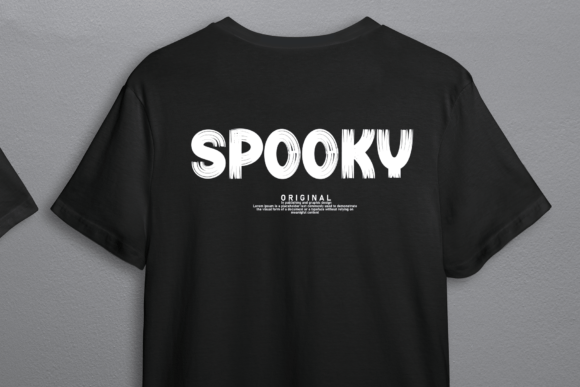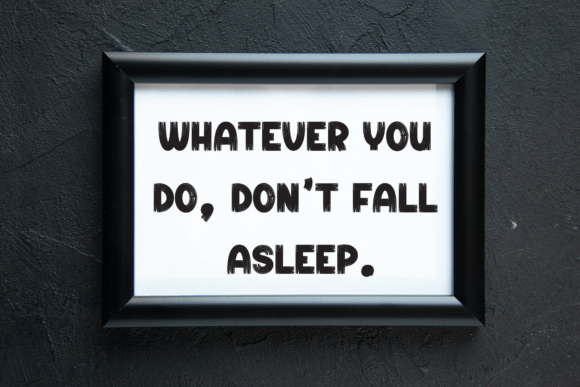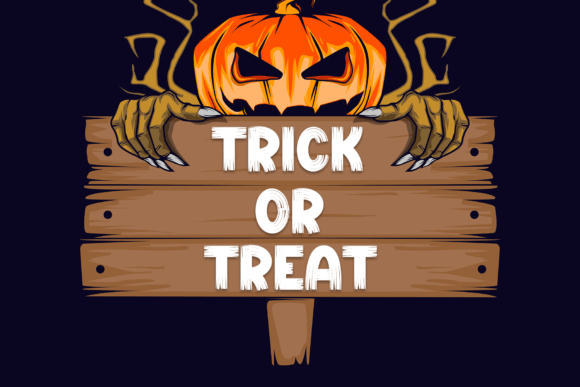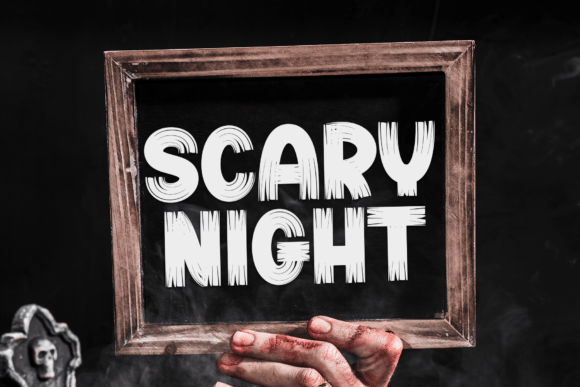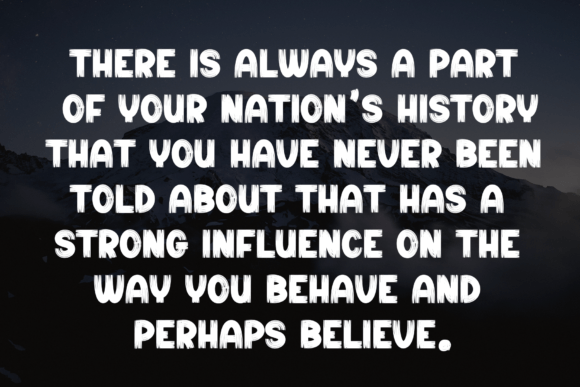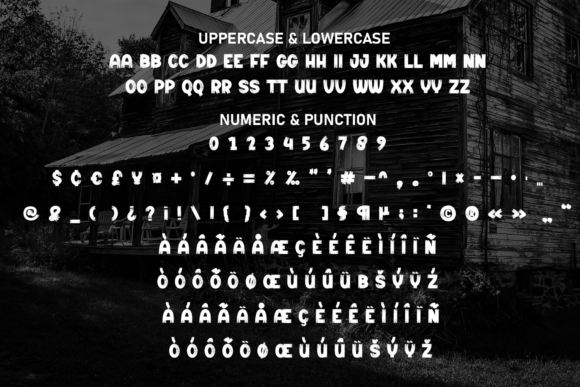
Unleash the Spookiness: Discover the Haunted House Font
Are you a designer, crafty enthusiast, or simply someone who loves the thrill of the spooky season? Look no further! We’re excited to introduce you to the Haunted House Font, a special creative product that will add a touch of eeriness to your projects. In this article, we’ll dive into the details of this font, its features, and how it can elevate your designs to the next level.
What is the Haunted House Font?
The Haunted House Font is a unique and captivating typeface designed to evoke the spirit of Halloween and the supernatural. Its latest style letters are perfect for creating eye-catching wall displays, wedding invitations, social media post logos, advertisements, product packaging, product designs, labels, photography, watermarks, invitations, stationery, and any project that requires tasteful handwriting.
Key Features of the Haunted House Font
- Wall displays: Create eye-catching wall art for Halloween parties or haunted house events.
- Wedding invitations: Add a touch of whimsy and romance to your wedding invitations with this unique font.
- Social media post logos: Elevate your social media presence with custom logos and graphics featuring the Haunted House Font.
- Advertisements: Use the font to create spooky and attention-grabbing ads for Halloween-themed products or events.
The Haunted House Font offers numerous benefits for designers and crafters, including:
- Unique designs: Stand out from the crowd with a one-of-a-kind font that adds a touch of eeriness to your projects.
- Versatility: Apply the Haunted House Font to a wide range of projects, from digital designs to print materials.